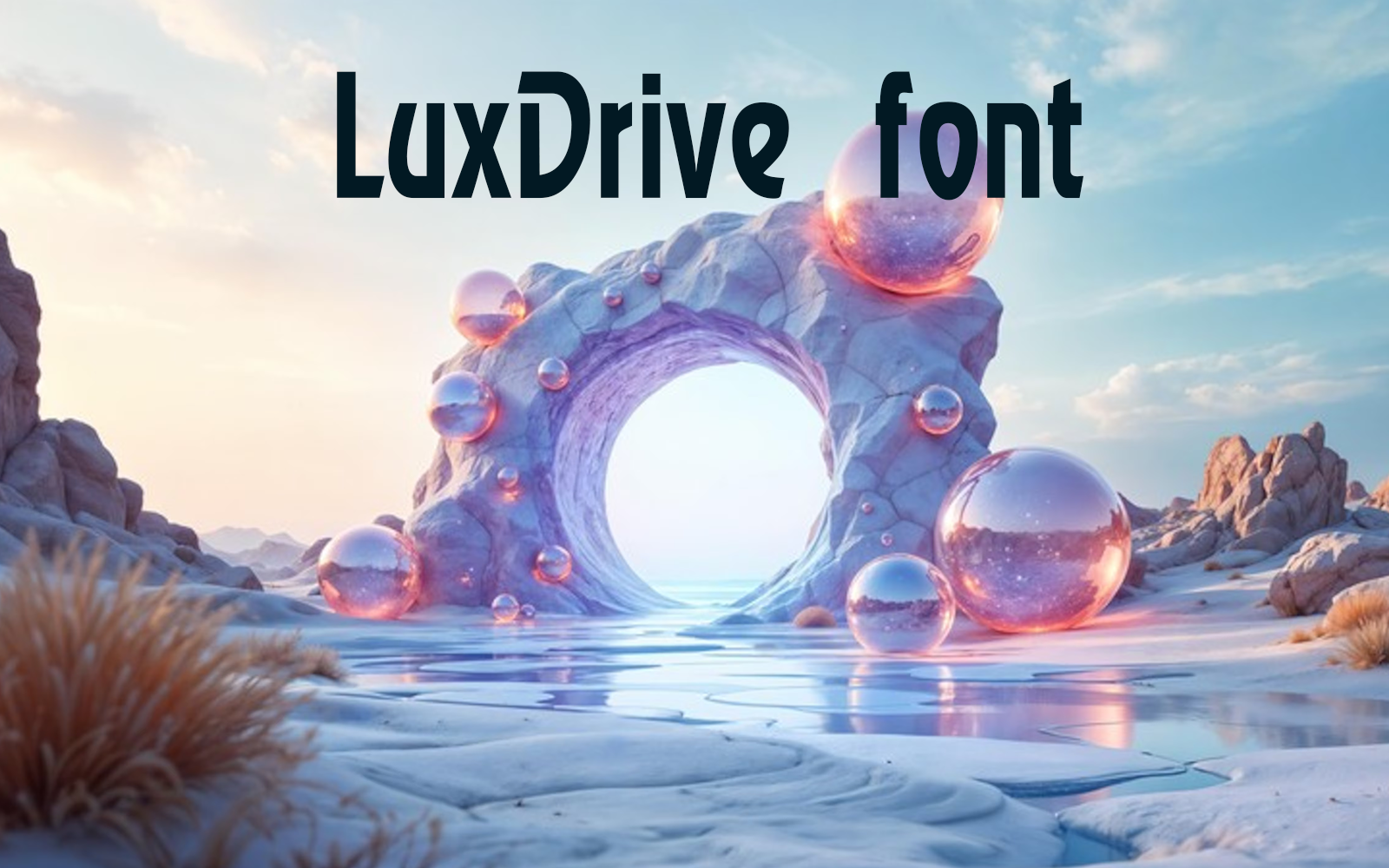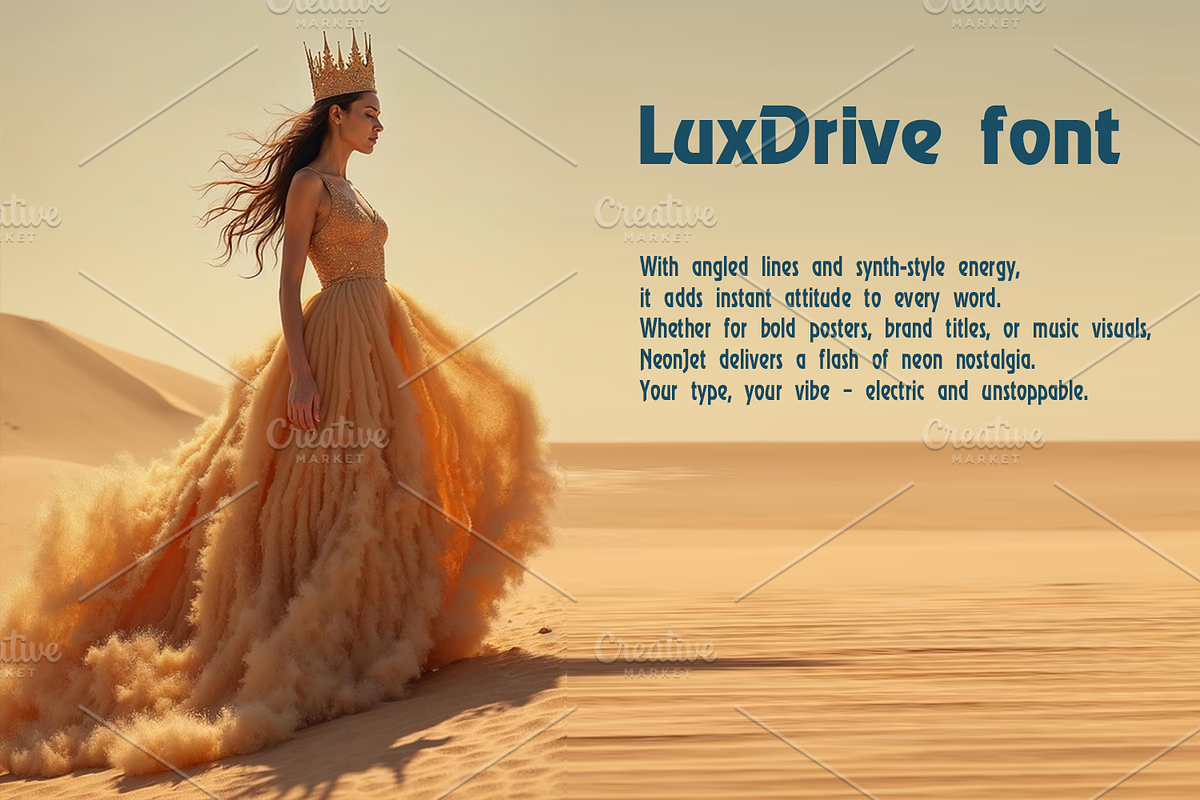
LuxDrive font-067-25
Unleash the retro future with LuxDrive – a font that moves as fast as your vision.
With angled lines and synth-style energy, it adds instant attitude to every word.
Whether for bold posters, brand titles, or music visuals, LuxDrive delivers a flash of neon nostalgia.
Your type, your vibe – electric and unstoppable.